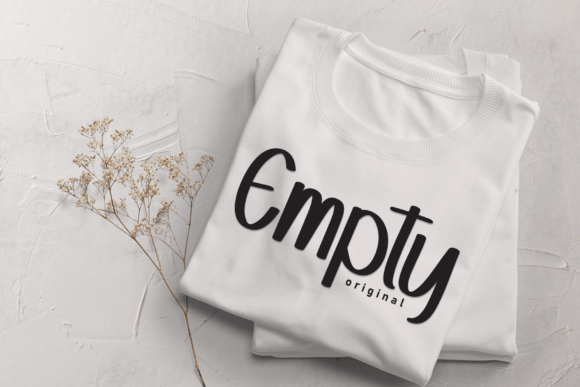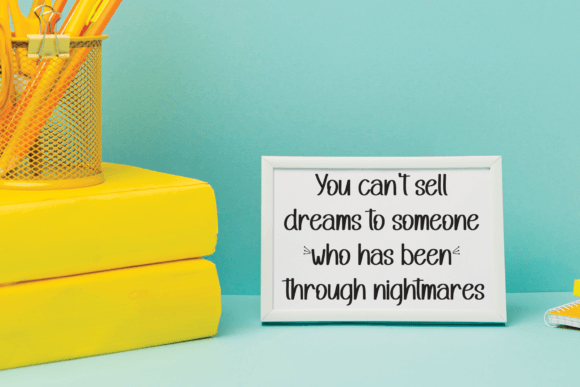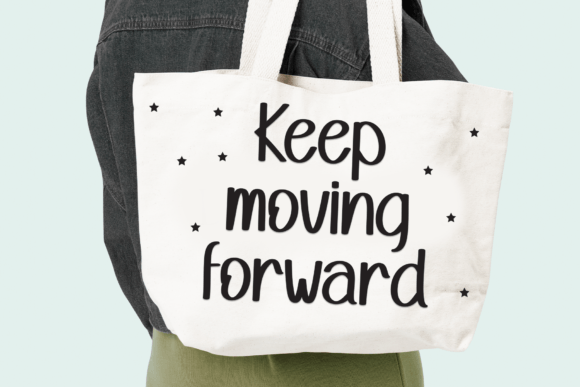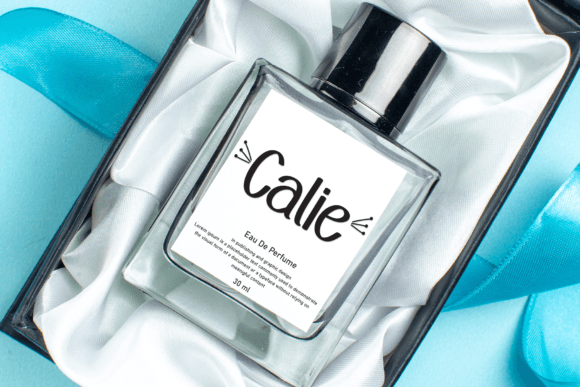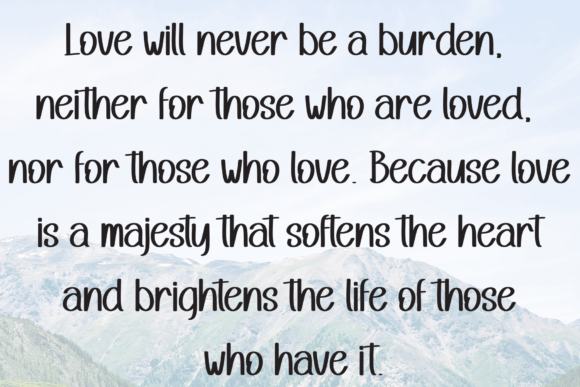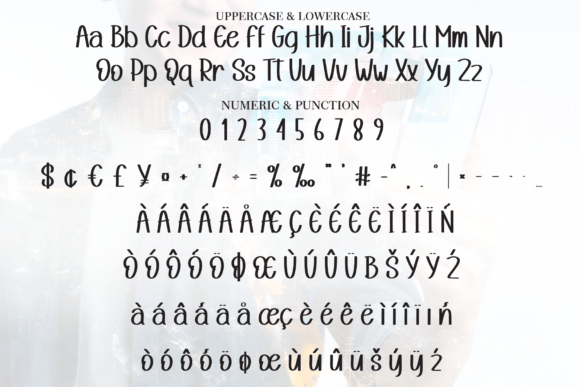
Introducing Connexion Font: The Sweet and Friendly Handwritten Display Font
Are you looking for a font that can add a touch of warmth and personality to your designs? Look no further than Connexion Font, a sweet and friendly handwritten display font that’s perfect for creating eye-catching and engaging content. In this article, we’ll take a closer look at Connexion Font, its features, and how you can use it to elevate your designs.
What is Connexion Font?
Connexion Font is a beautiful handwritten display font that’s designed to bring a sense of fun and playfulness to your designs. With its sweet and friendly appearance, this font is ideal for writing wedding invitations, cards, or any other design that might need a fun touch. Whether you’re a designer, crafter, or DIY enthusiast, Connexion Font is a great addition to your font collection.
Key Features of Connexion Font
So, what makes Connexion Font so special? Here are some of its key features:
- Handwritten appearance: Connexion Font has a genuine handwritten look that’s perfect for creating personal and engaging content.
- Sweet and friendly: This font exudes warmth and friendliness, making it ideal for designs that require a touch of personality.
- Cute and fun: Connexion Font is perfect for designs that require a playful and fun touch, such as wedding invitations, birthday cards, and more.
- Display font: Connexion Font is designed to be used as a display font, making it perfect for headlines, titles, and other prominent text elements.
Use Cases for Connexion Font
So, how can you use Connexion Font in your designs? Here are some ideas to get you started:
- Wedding invitations: Connexion Font is perfect for creating beautiful and personalized wedding invitations that set the tone for the big day.
- Cards and stationery: This font is ideal for creating fun and playful cards, stationery, and other paper crafts.
- Social media graphics: Connexion Font can add a touch of personality to your social media graphics, making them more engaging and shareable.
- Branding and packaging: This font can be used to create custom branding and packaging that stands out from the crowd.
Tips for Using Connexion Font
Here are some tips for getting the most out of Connexion Font:
- Use it sparingly: Connexion Font is a display font, so it’s best to use it sparingly to create emphasis and visual interest.
- Pair it with a simple font: Pair Connexion Font with a simple font to create contrast and visual hierarchy.
- Experiment with colors: Connexion Font looks great in a variety of colors, so don’t be afraid to experiment and find the perfect hue for your design.
In conclusion, Connexion Font is a sweet and friendly handwritten display font that’s perfect for adding a touch of personality to your designs. With its cute and fun appearance, this font is ideal for writing wedding invitations, cards, or any other design that might need a fun touch. Whether you’re a designer, crafter, or DIY enthusiast, Connexion Font is a great addition to your font collection.